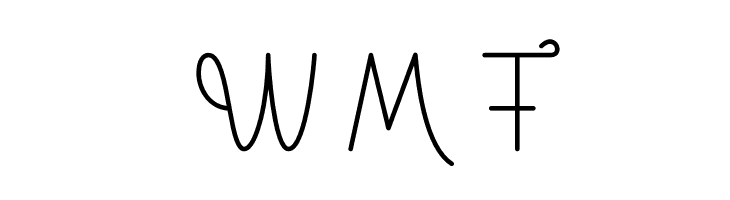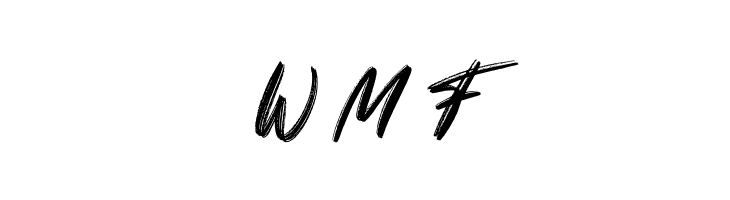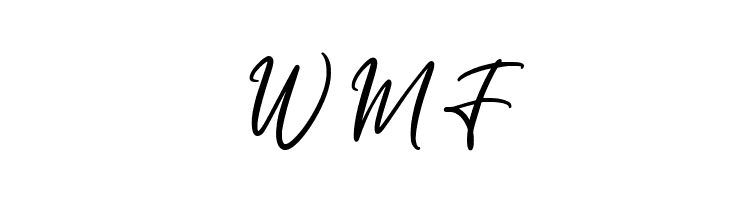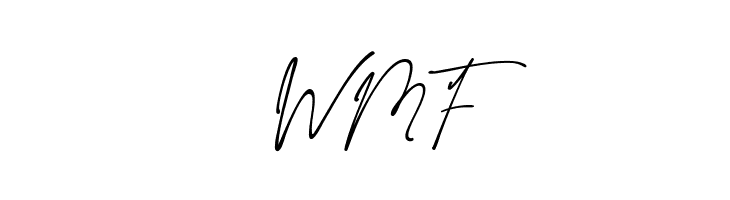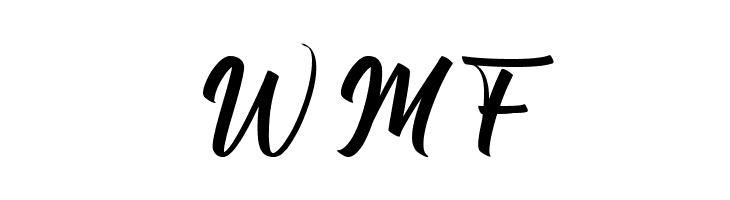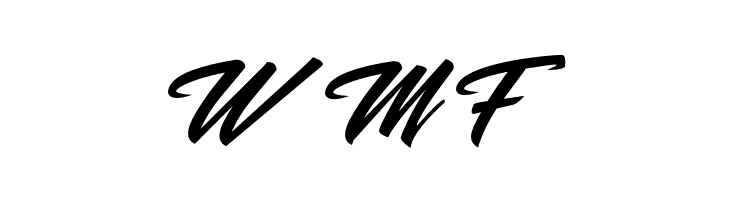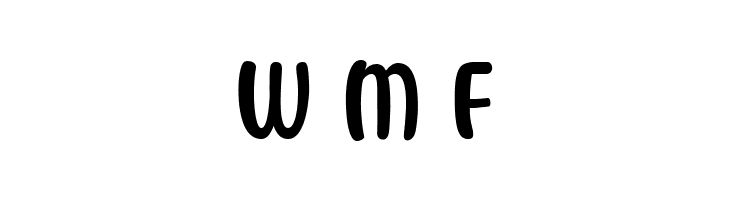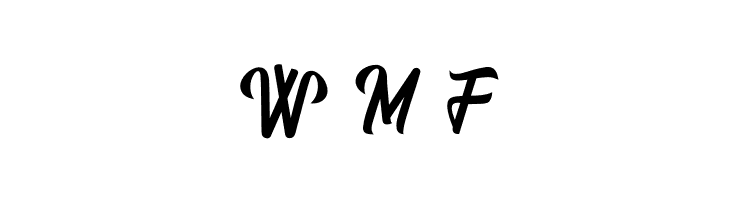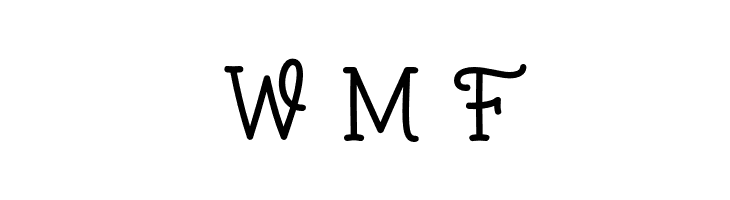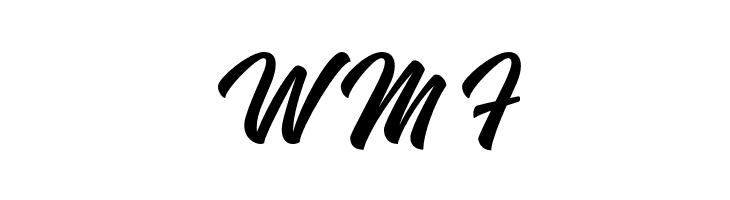
A playful, hand-drawn font with a whimsical and casual style.
A playful, modern font with bold, slightly condensed characters and uniform strokes.
A playful, whimsical script font with a handwritten feel.
A playful, rounded font with smooth curves and a friendly appearance.
A flowing, cursive italic font with elegant and smooth strokes.
An elegant, flowing script font with smooth, cursive letterforms.
A fluid and elegant script font with a natural, cursive flow.
A bold, brush-style font with dynamic, hand-painted strokes.
A dynamic and flowing script font with elegant cursive letterforms.
A flowing, cursive script font with elegant, connected strokes.
A bold, futuristic font with sharp angles and geometric shapes.
A futuristic, angular italic font with bold strokes and dynamic slant.
A playful handwritten font with thin, flowing lines and whimsical letterforms.
A playful and elegant script font with a modern twist, featuring distinctive loops and smooth curves.
A bold, brush-style font with dynamic, handwritten characteristics.
A bold, brush script font with dynamic strokes and artistic flair.
A geometric, angular font with a wireframe appearance and thin strokes.
A playful, rounded, and italic font with bold strokes and friendly appeal.
A bold, rounded font with a modern and playful style.
A bold, playful handwritten font with rounded, irregular letterforms.
A graceful, flowing script font with elegant, connected strokes.
A hand-drawn, playful font with irregular strokes and an artistic flair.
An elegant cursive script font with flowing, connected letters.
A bold, flowing script font with elegant, cursive letterforms.
A bold, high-contrast script font with elegant, flowing letterforms.
A playful, rounded font with a bold and friendly appearance.
A bold, playful font with whimsical curves and decorative elements.
A bold, expressive script font with flowing, cursive letterforms.
A futuristic and geometric font with clean lines and rounded edges.
A playful, curly font with rounded edges and whimsical character.
A playful, handwritten script font with a whimsical and elegant style.
A fluid and elegant script font with a modern, dynamic style.
A bold, geometric font with Middle Eastern architectural influences.
A bold, playful handwritten font with a casual and dynamic style.